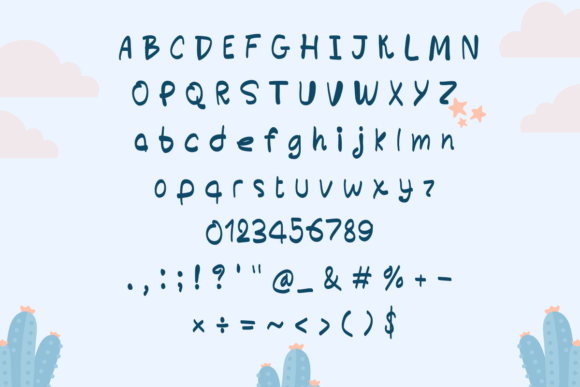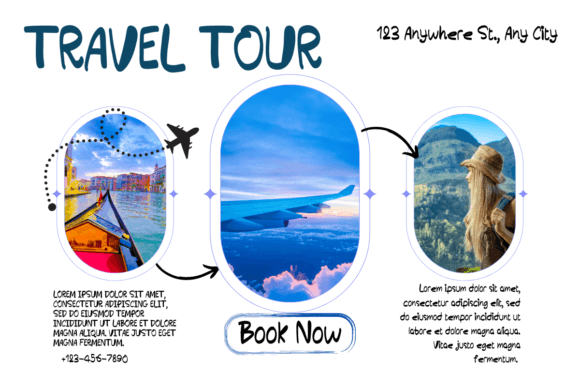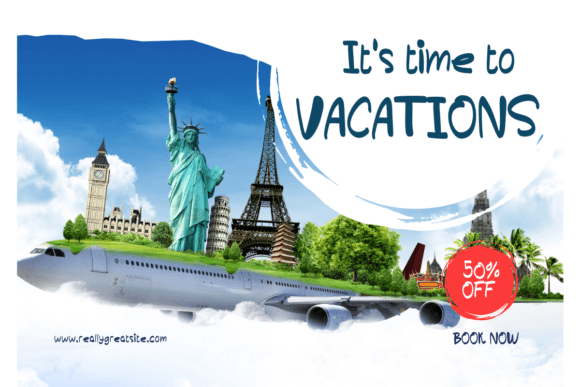
Indulge in the Sweetness of Brownie Font
As a designer, there’s nothing quite like the thrill of bringing a creative idea to life. For many of us, it starts with a simple spark – perhaps a favorite recipe, a childhood memory, or a whimsical font that sets the tone for our entire project. And that’s exactly what happened when I discovered Brownie Font, a delectable script and handwritten typeface that captures the essence of homemade charm.
With its playful strokes and irregular letterforms, Brownie Font lends a delightful touch of warmth and personality to any design. Whether you’re crafting a baking blog, recipe card, or sweet-themed project, this font is the perfect companion to bring your vision to life. Its authenticity and charm make it a valuable addition to any designer’s toolkit, adding a unique touch to your creative endeavors.
Brownie Font Key Features
- Font Family: Brownie Font is a sans-serif font family designed for digital use.
- Font Size and Style: Comes in multiple weights (Light, Regular, Bold, Black) and italics for versatile use in different contexts.
- Resolution and Scalability: Optimized for high-resolution displays and scalable for use in various screen sizes and devices.
- Unique Characteristics: Features a friendly, approachable feel and a high level of legibility, making it suitable for body text and titles in digital products.
- Language Support: Supports multiple languages, including Latin, Cyrillic, and Greek scripts, for global use.
Designer Review: Brownie Font
Overall, I think the Brownie Font is a decent addition to any designer’s toolkit. It’s perfect for those who need a font that’s a bit quirky and offbeat.
- Unique character set: The Brownie Font has a distinctive set of characters that will add a touch of personality to any design.
- Good for display text: The font is well-suited for use in headings and titles, where its bold and playful style can really shine.
- Easy to read: Despite its quirky appearance, the font is surprisingly easy to read, even at small sizes.
- Limited language support: The Brownie Font may not be suitable for use in languages that require a lot of diacritical marks or other special characters.
- Not ideal for body text: While the font is great for display text, it’s not the best choice for body text, where legibility is key.
- May not be suitable for formal designs: The Brownie Font is a bit too playful and informal for use in formal designs or corporate materials.
Overall, I think the Brownie Font is a fun and useful addition to any designer’s toolkit. While it may not be suitable for every project, it’s definitely worth considering for those who need a unique and eye-catching font.
Tips for Getting the Most Out of Brownie Font
Use Brownie Font for titles, headings, and emphasis to add a touch of whimsy and playfulness to your designs. Experiment with different font sizes and colors to create visual interest. Combine Brownie Font with other fonts to create a unique and eye-catching typography style.
Brownie Font is perfect for creating playful and child-friendly designs, such as birthday invitations, party decorations, and children’s book illustrations. It’s also great for adding a touch of humor and personality to corporate branding and marketing materials.